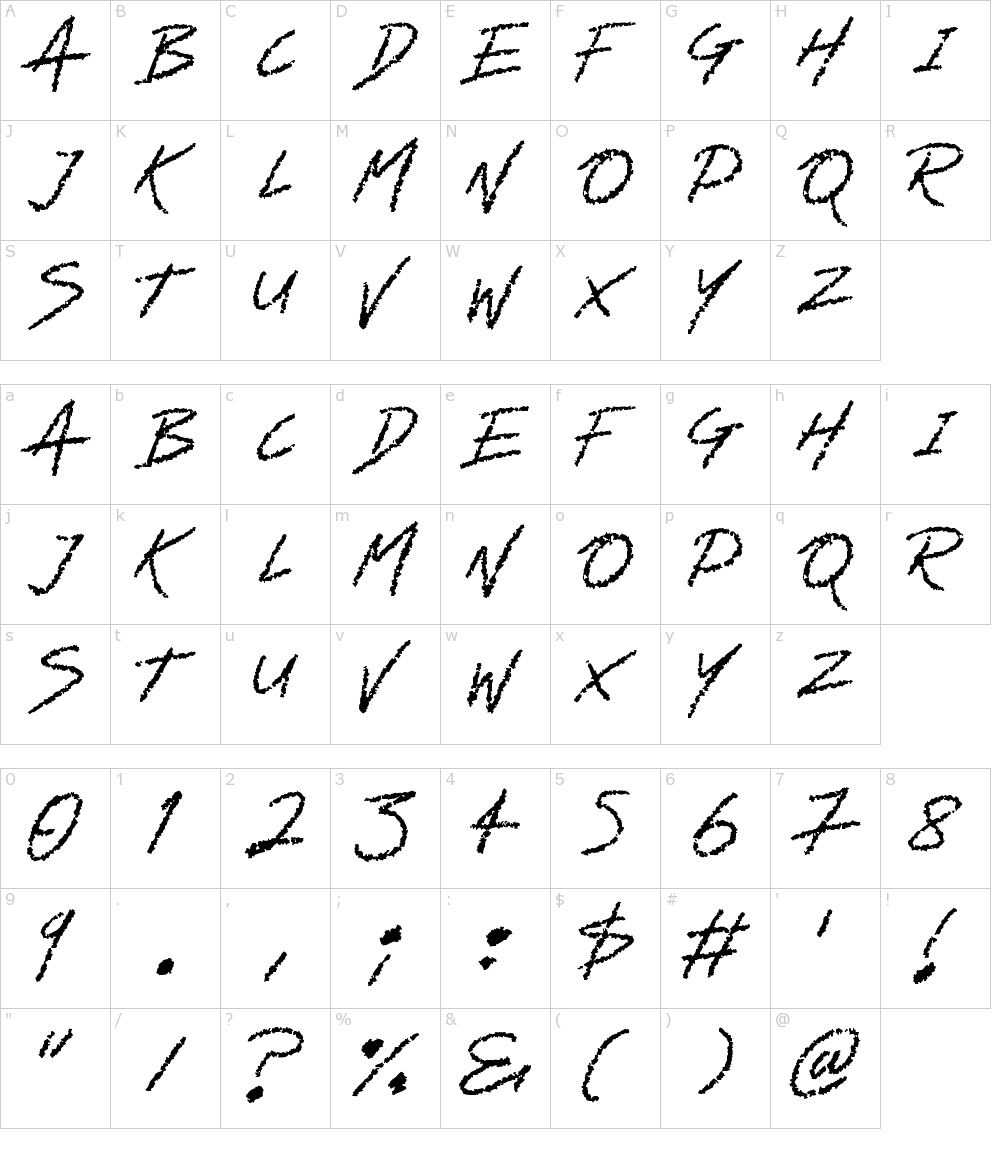
+23 Ghastly Fonts Ideas. Perfect for scary themes and halloween! The font is free for both personel and commercial usages.
Font meme is a fonts & typography resource. Ghastly panic font is a fancy typeface inspired by the gothic and horror genres. The font is licensed as free.
It’s perfect for creating spooky, creepy, or macabre designs. Ghastly panic font is a fancy horror brush typeface with a slim texture suitable for some scary and halloween projects. The ghastly is a horror style font in a scratchy, unsettling style.
Ghastly Panic Font Is An Uneven Spiky Typeface With An Evil Touch.